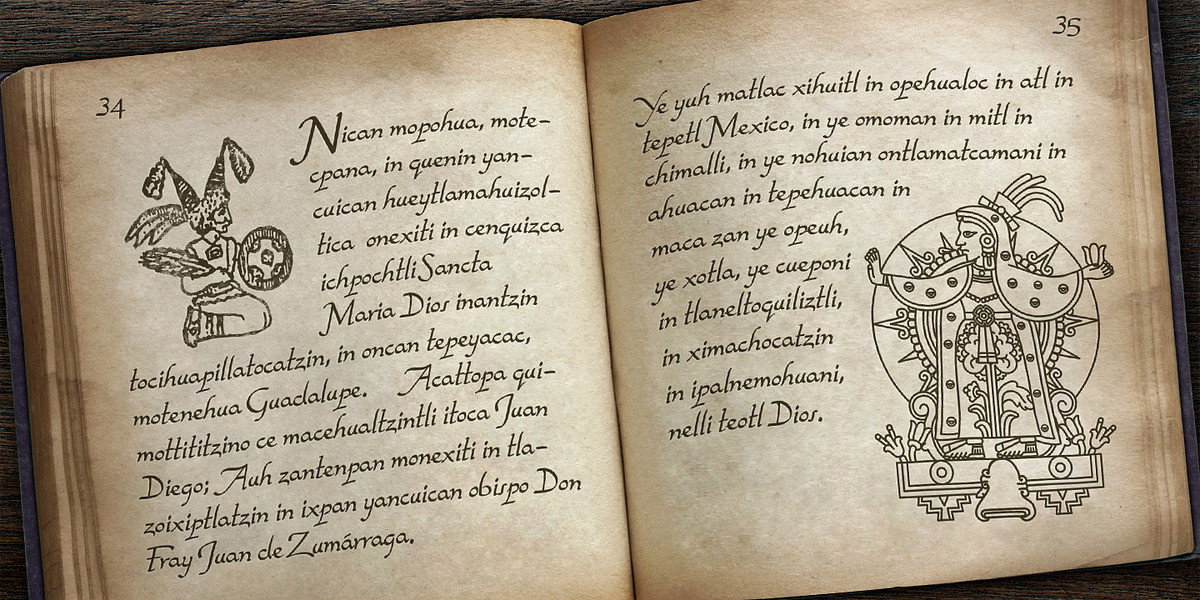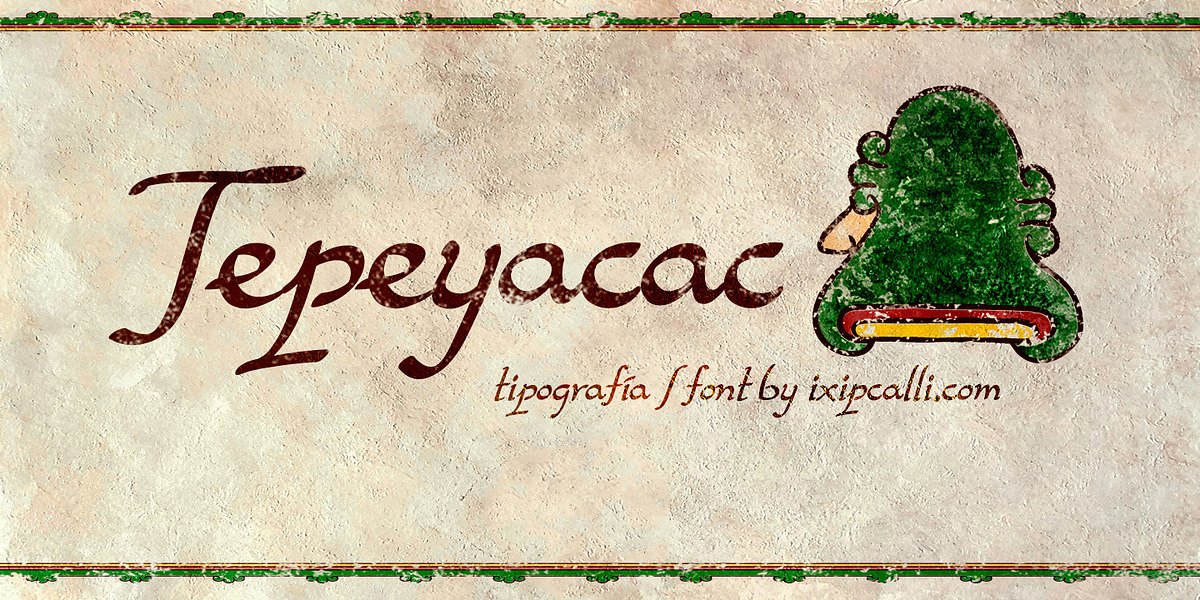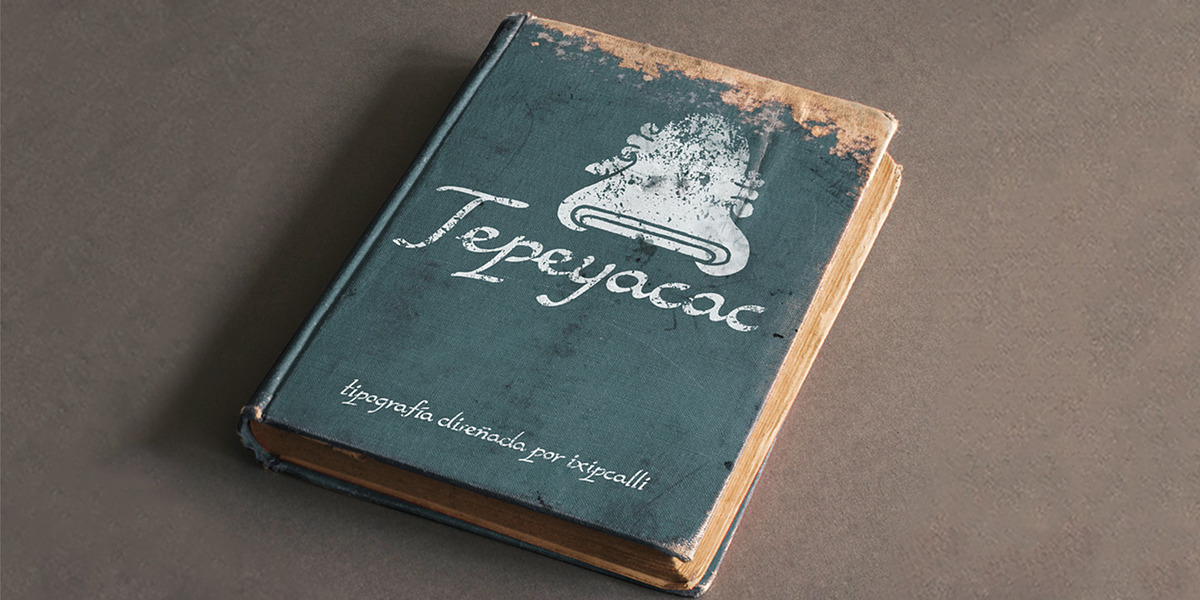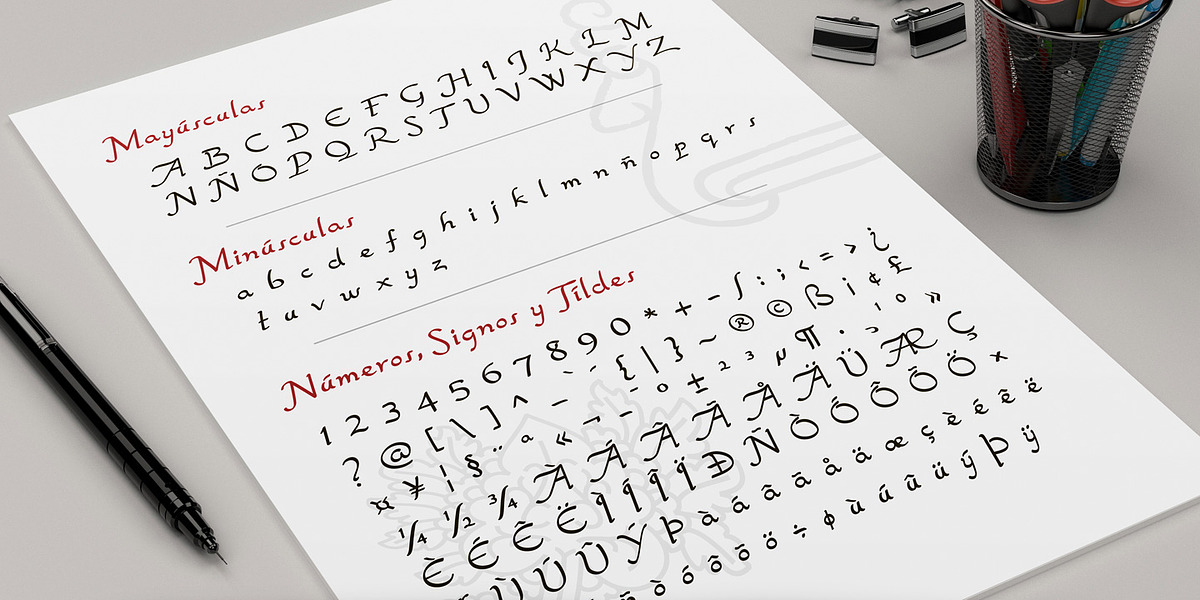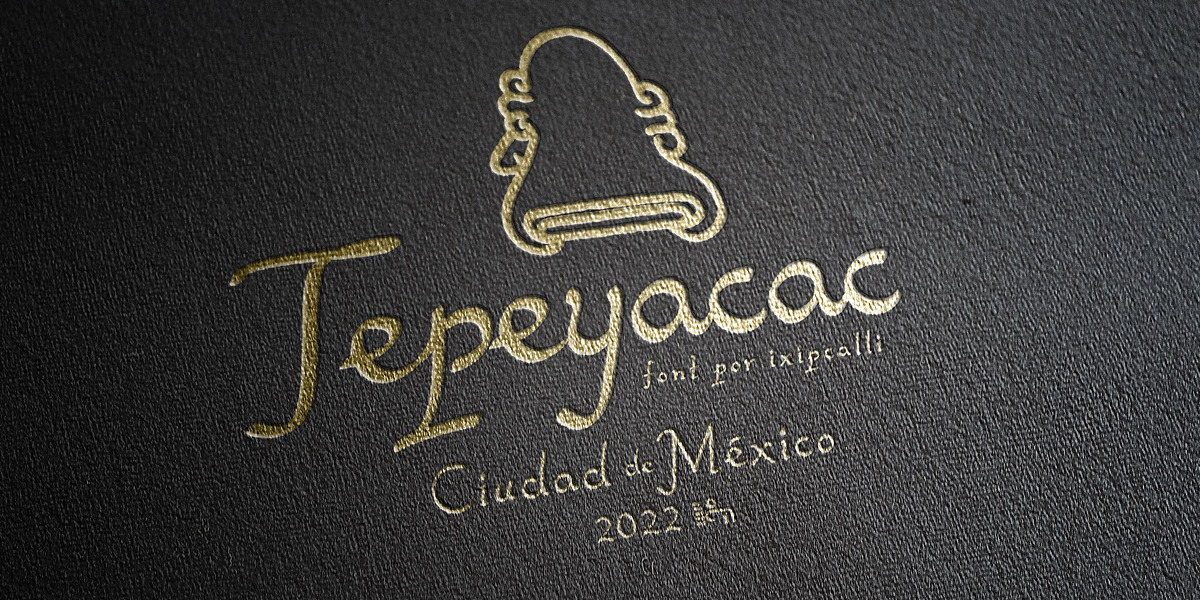
Tepeyacac
The Tepeyacac typeface is inspired by the original writings of Nican Mopohua, written by the Mexican indigenous author Antonio Valeriano. Its medieval handwritten style gives it a calligraphic cursive appearance without overwhelming the eye. The weights create a striking visual interplay between lines. The typeface is ideal for creating texts with an antique effect.